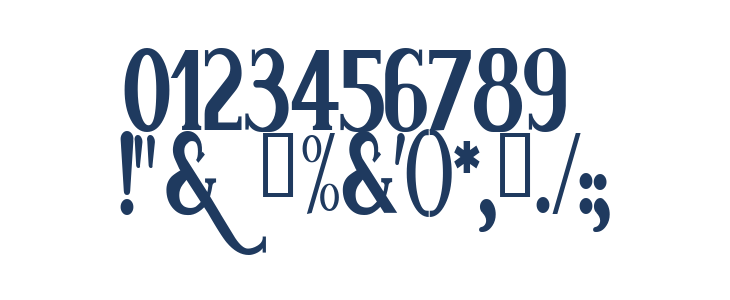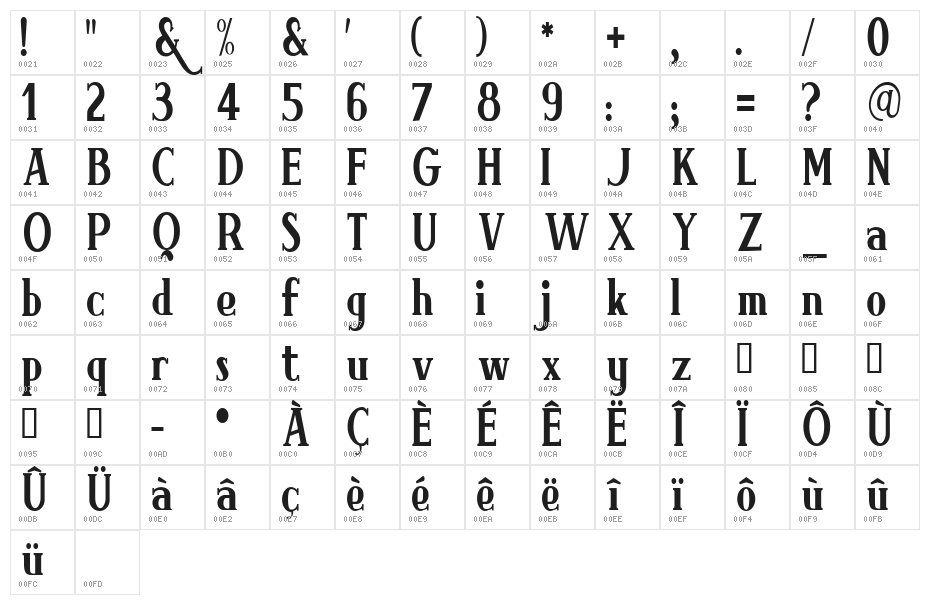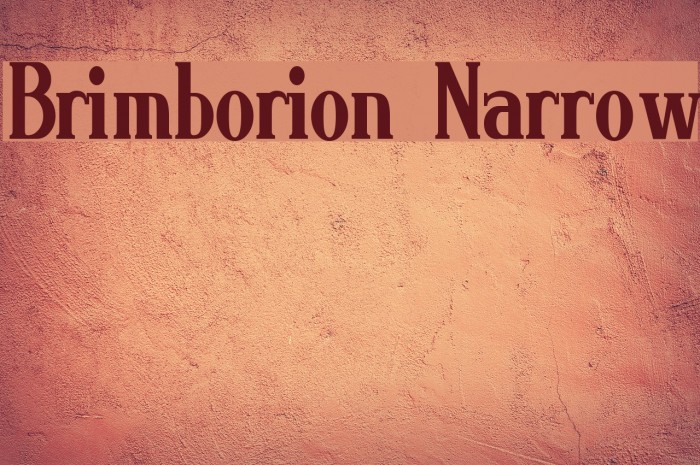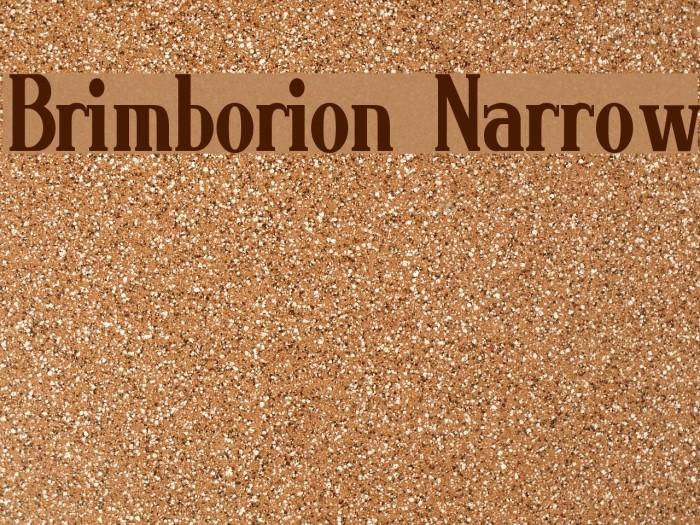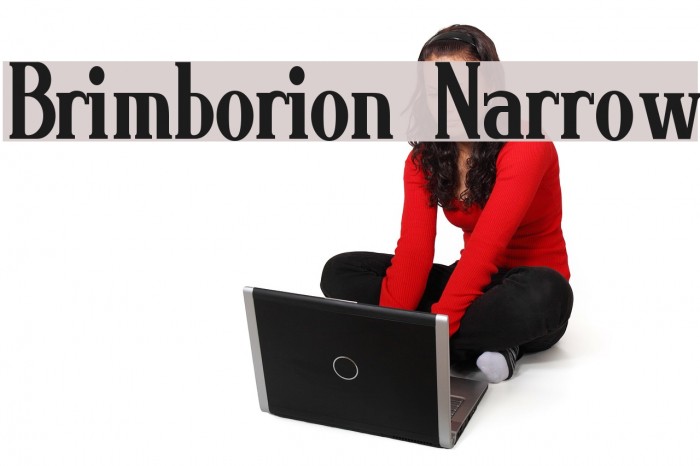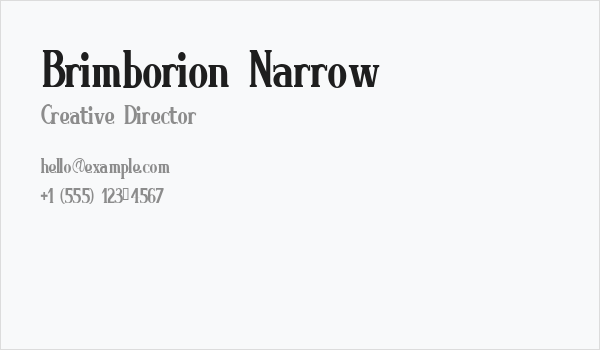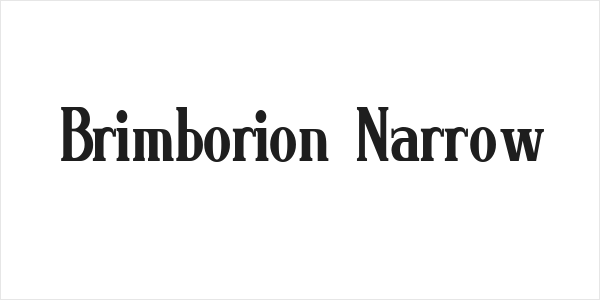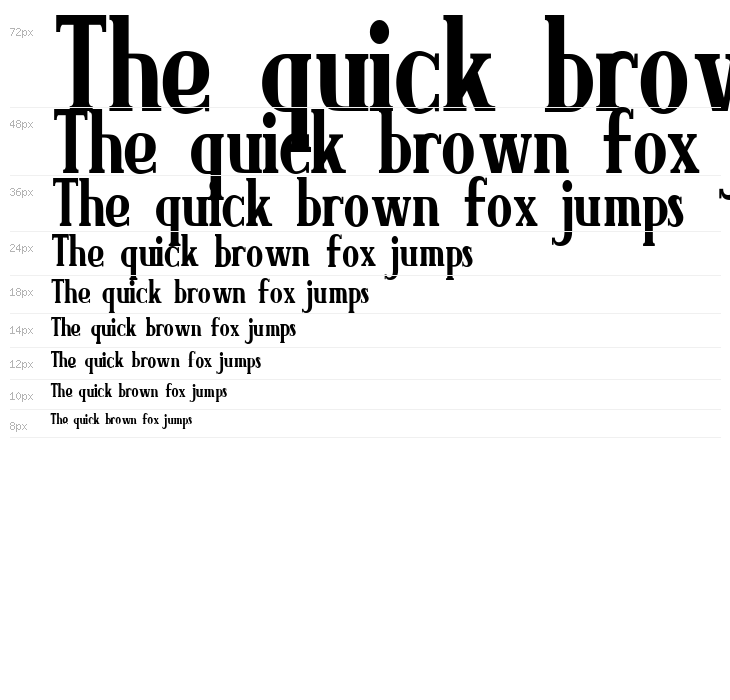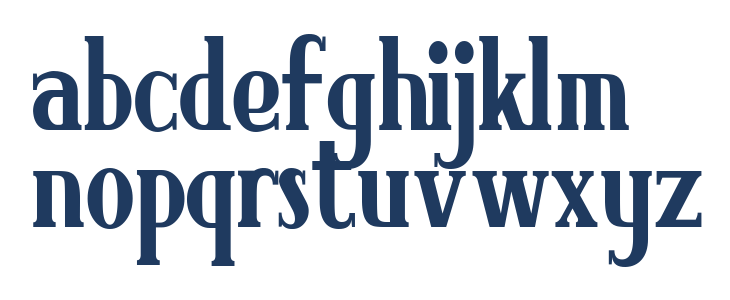
Brimborion Narrow Font
Brimborion Narrow Description
This font features a bold and striking design with high contrast between thick and thin strokes. The uppercase letters are tall and narrow, giving a sense of elegance and sophistication. The lowercase letters maintain a consistent style, with rounded edges and a slightly condensed appearance. Numbers are clear and distinct, with a uniform height that matches the uppercase letters. Special characters are designed to complement the overall aesthetic, making this font versatile for various uses. The font's narrow width and high contrast make it ideal for impactful headlines and titles.
| Proposed Projects | Ideal for editorial design, book covers, posters, and branding projects that require a classic yet modern touch. |